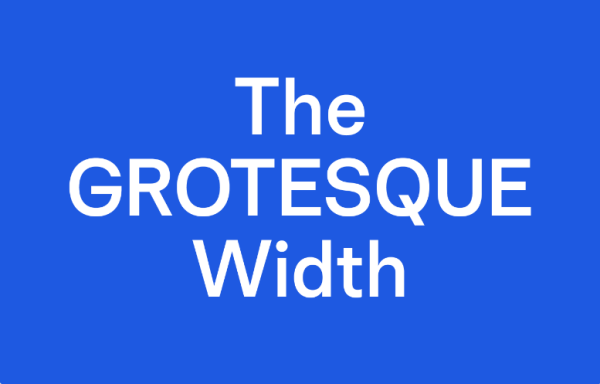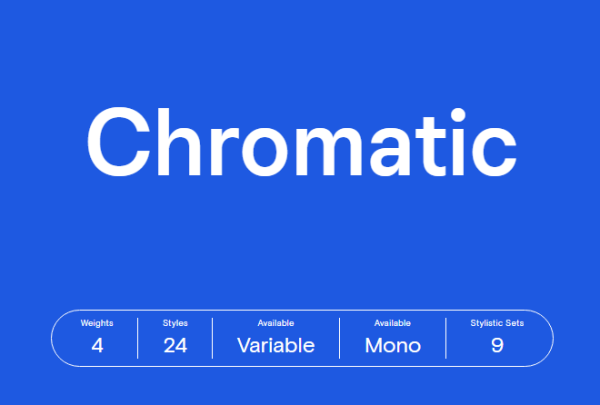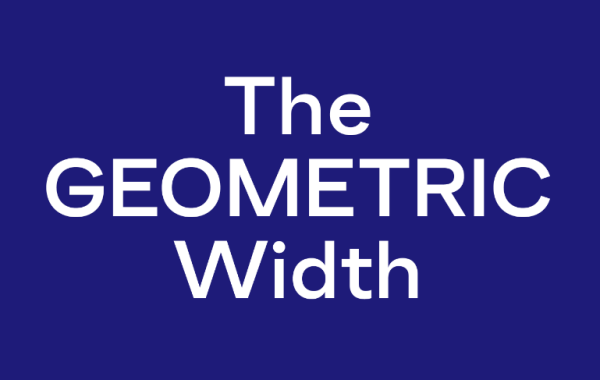
Chromatic Pro & Mono Font
Chromatic Pro & Mono Font, is a sans serif  stunning when combined or separately. This sans serif font style is legible and stunningly designed.